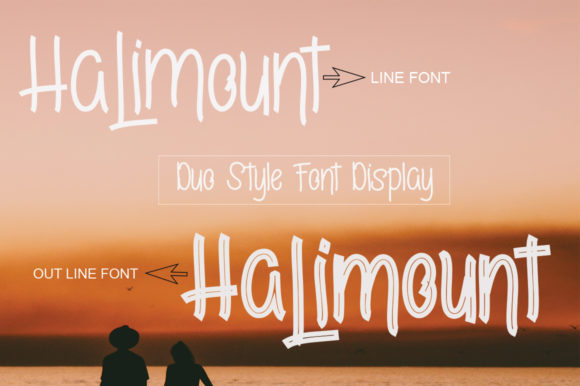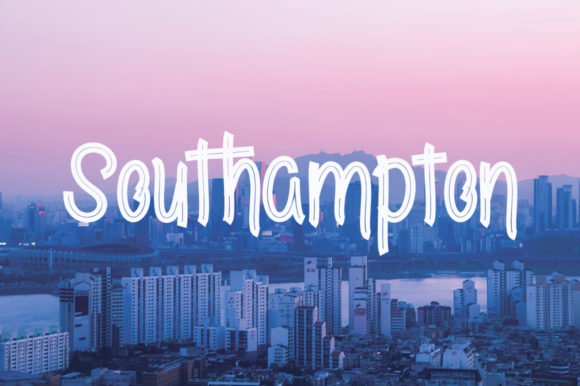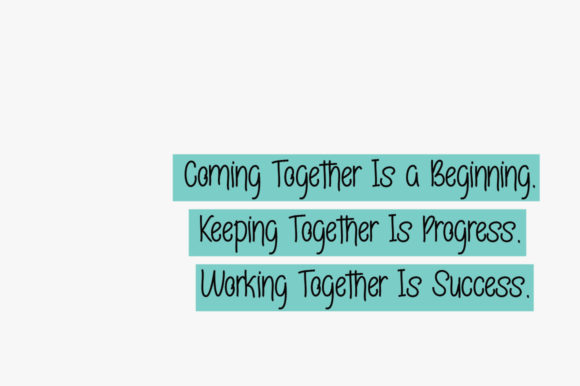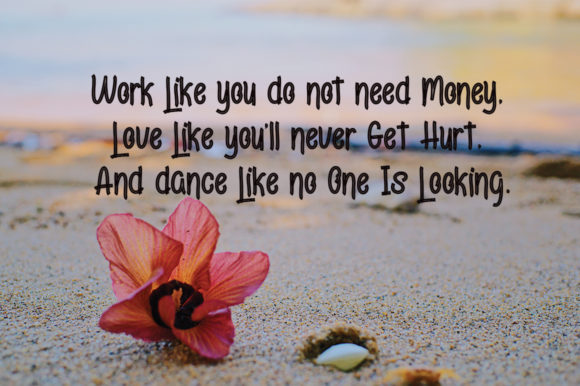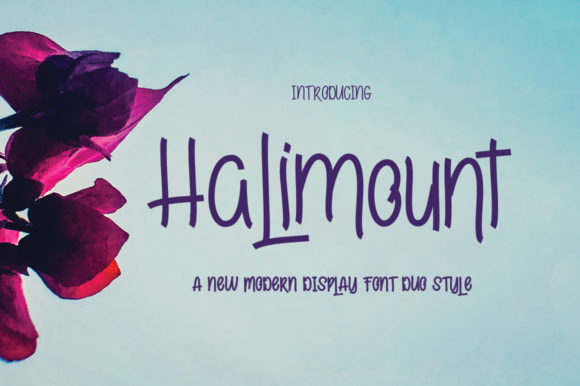
Discover the Charm of Halimount Font: A Beautiful Display Font for Creative Projects
Are you a designer or crafter looking for a font that can add a touch of personality to your creative projects? Look no further than Halimount Font. This beautiful display font is designed to bring a sense of casual charm to your designs, making it appear wonderfully down-to-earth, readable, and incredibly versatile. In this article, we’ll explore the features and benefits of Halimount Font, and how it can be used in a wide variety of applications.
The Characteristics of Halimount Font
Halimount Font is a display font that boasts a unique and charming aesthetic. Its casual charm makes it perfect for designers and crafters who want to add a personal touch to their projects. The font is designed to be highly readable, making it suitable for use in a range of applications, from body text to headings and titles.
One of the standout features of Halimount Font is its versatility. This font can be used in a wide range of creative projects, from stationery and greeting cards to posters, flyers, and more. The only limit is your imagination! Whether you’re designing for print or digital, Halimount Font is a great choice.
The Benefits of Using Halimount Font
So, why choose Halimount Font for your creative projects? Here are just a few benefits of using this beautiful display font:
• Unique and charming aesthetic: Halimount Font has a distinctive look that will set your designs apart from the crowd.
• Highly readable: The font is designed to be easy to read, making it perfect for body text and headings.
• Versatile: Halimount Font can be used in a wide range of applications, from stationery to posters and more.
Using Halimount Font in Your Creative Projects
So, how can you use Halimount Font in your creative projects? Here are a few ideas to get you started:
Stationery and Greeting Cards
Halimount Font is perfect for creating beautiful stationery and greeting cards. The font’s casual charm makes it ideal for adding a personal touch to your correspondence. Use it to create custom invitations, thank you cards, and more.
Posters and Flyers
Need to create a poster or flyer that will grab attention? Halimount Font is a great choice. The font’s bold and charming aesthetic makes it perfect for headlines and titles.
Digital Designs
Halimount Font is also suitable for use in digital designs. Use it to create social media graphics, blog posts, and more. The font’s readability and charm make it perfect for online content.
Tips for Getting the Most Out of Halimount Font
Here are a few tips for getting the most out of Halimount Font:
• Experiment with different sizes and styles: Halimount Font looks great in a range of sizes and styles. Experiment with different combinations to find the one that works best for your project.
• Pair it with other fonts: Halimount Font pairs well with other fonts. Try combining it with a sans-serif font for a bold and modern look.
• Use it consistently: To create a cohesive look, use Halimount Font consistently throughout your design.
Halimount Font is a beautiful display font that offers a unique and charming aesthetic. Its casual charm makes it appear wonderfully down-to-earth, readable, and incredibly versatile. Whether you’re a designer or crafter, Halimount Font is a great choice for a wide range of creative projects. With its highly readable design and versatility, it’s the perfect font for adding a personal touch to your designs.